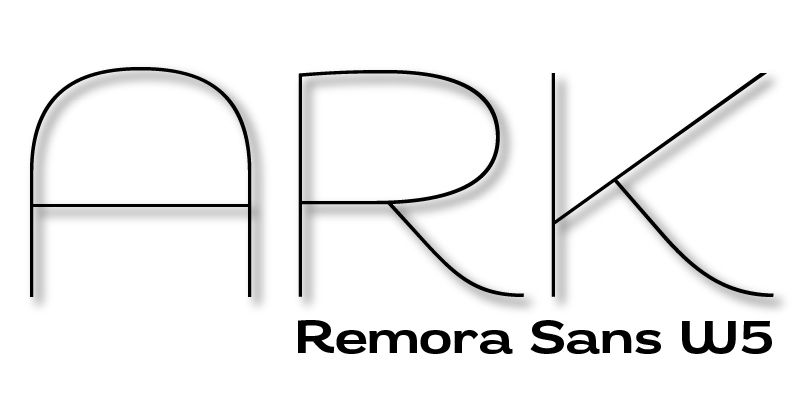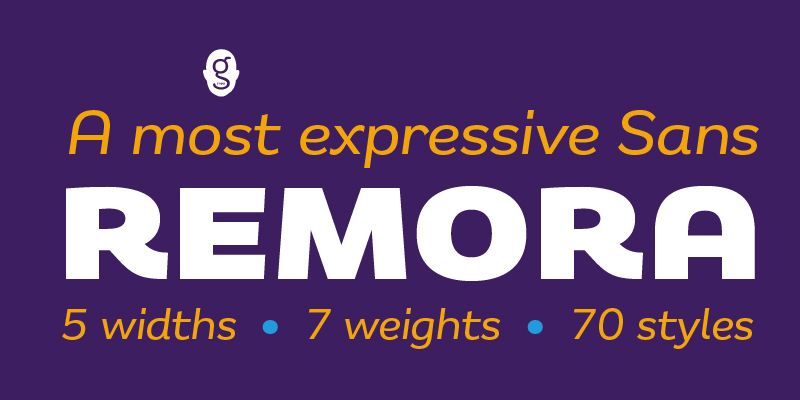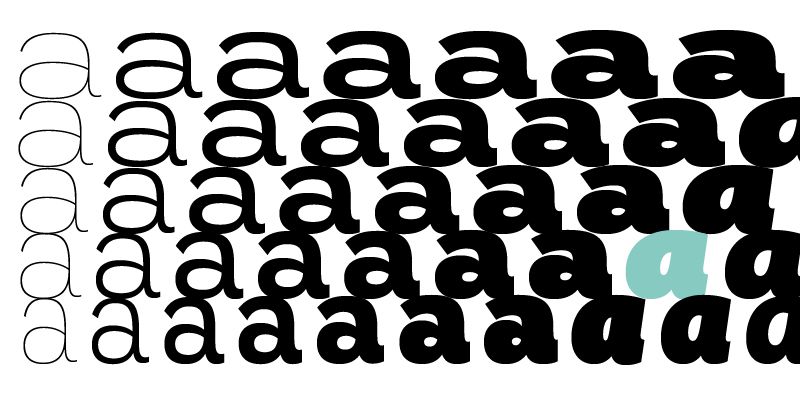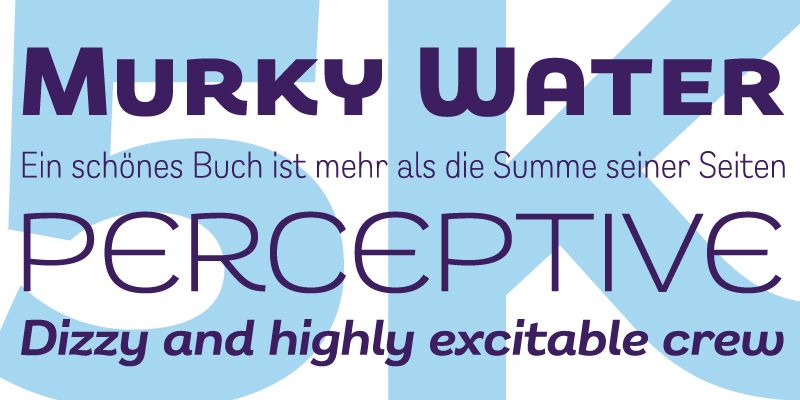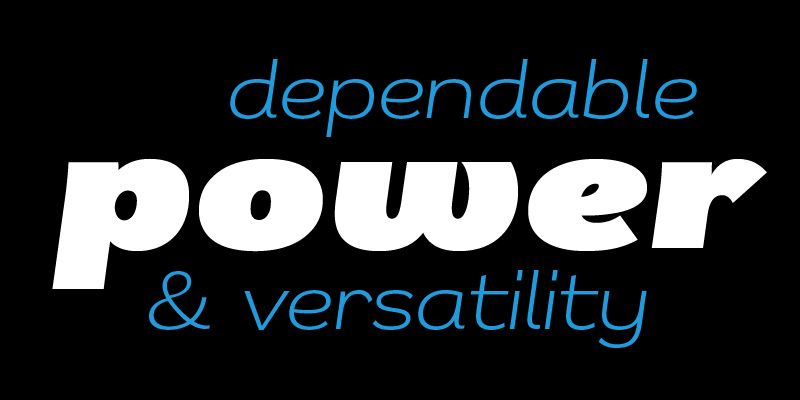
The exuberant Remora Sans is a must-have humanist typeface comprising 70 fonts across 5 width sets ranging from W1 condensed to the extra-wide W5. Characterful fonts packed with personality.